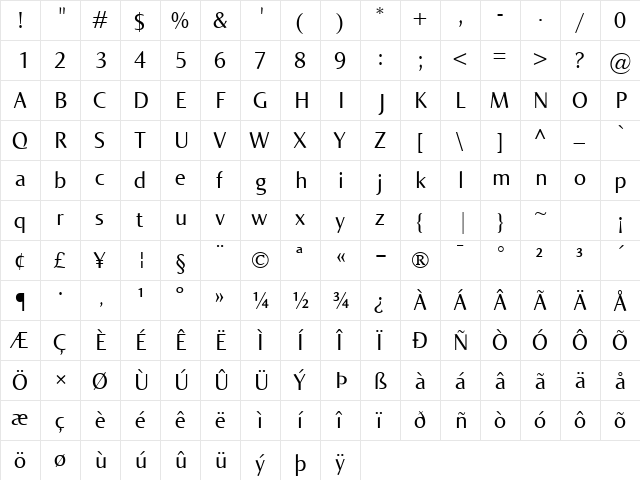
Norma Regular Font Preview
Norma Regular
Design Context for Norma Typeface
Norma takes a measured approach to typography — its balanced proportions and neutral character make it a reliable workhorse for both digital and print work.